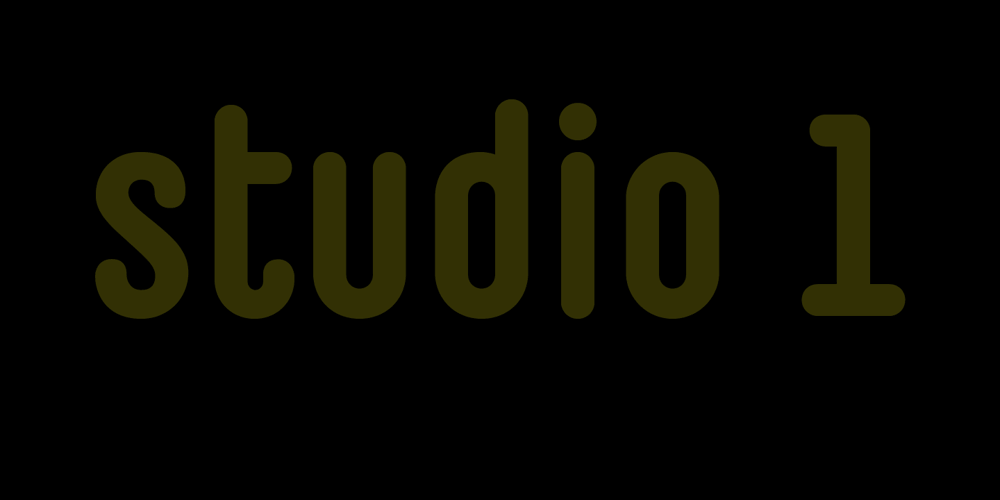
Studio Five Font Family was designed by Daniel Lanz and published by Lafonts. Studio Five contains 3 styles and family package options. Designed after the sixties neon sign of an arthouse cinema in downtown Zurich, Studio 5 is now a typeface for many applications. The three different styles include old style numbers and alternate characters for titling. All styles have the same metrics. Bold and open styles can be layered for neon sign effects.